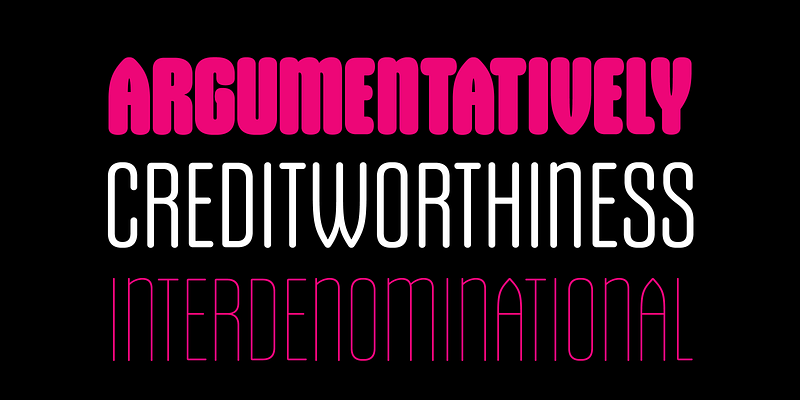
Gothiks Round Font Free Download
Gothiks Round Font Free Download is a clean and modern sans-serif typeface with rounded edges that give it a friendly, approachable look. Its balanced proportions and soft curves make it perfect for a wide range of projects, including branding, logos, posters, websites, and any design that requires a contemporary and sleek aesthetic.
Gothiks Round is highly versatile, offering excellent readability in both headlines and body text. It works seamlessly with design tools like Adobe Illustrator, Photoshop, Figma, and Canva, making it ideal for both print and digital media.